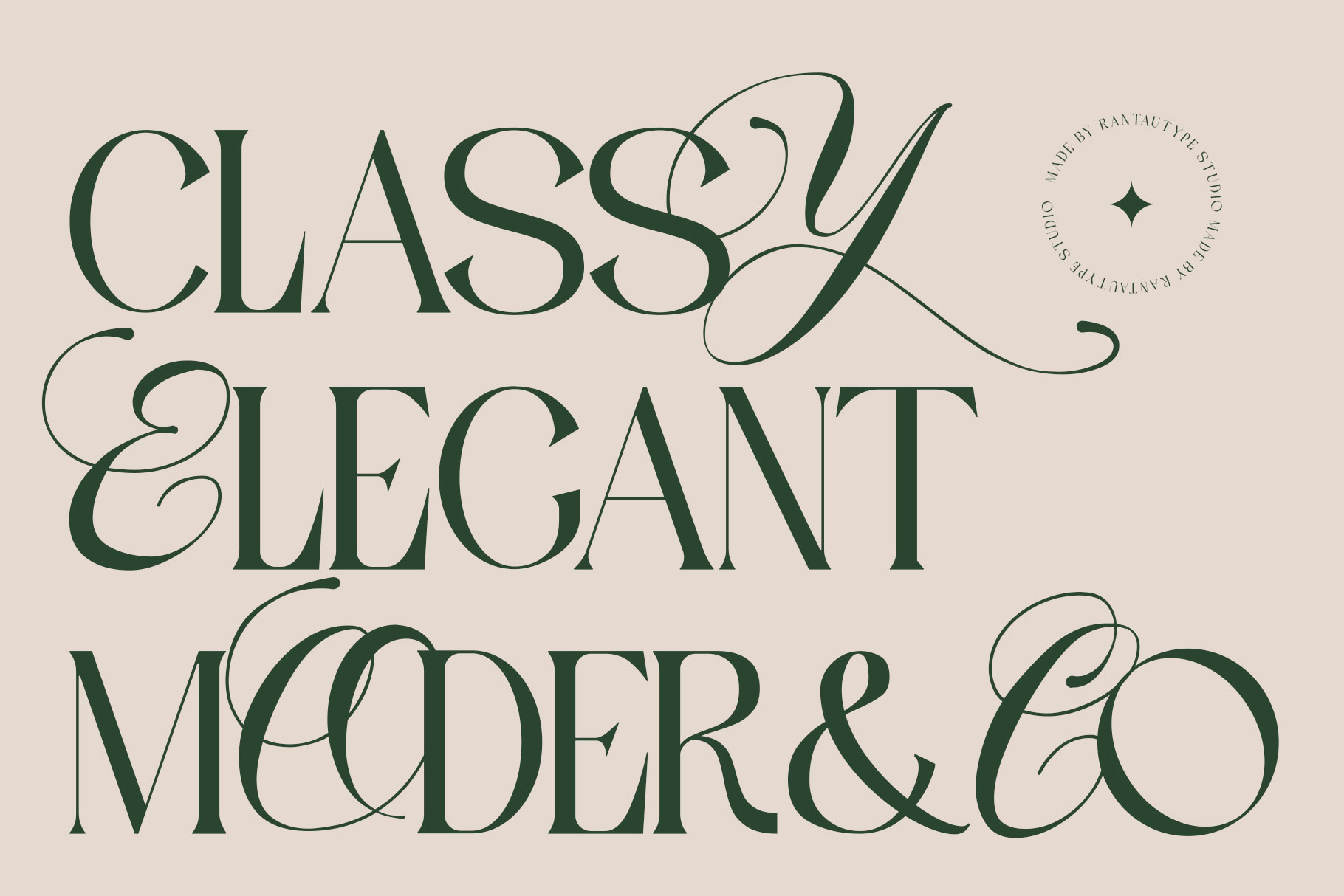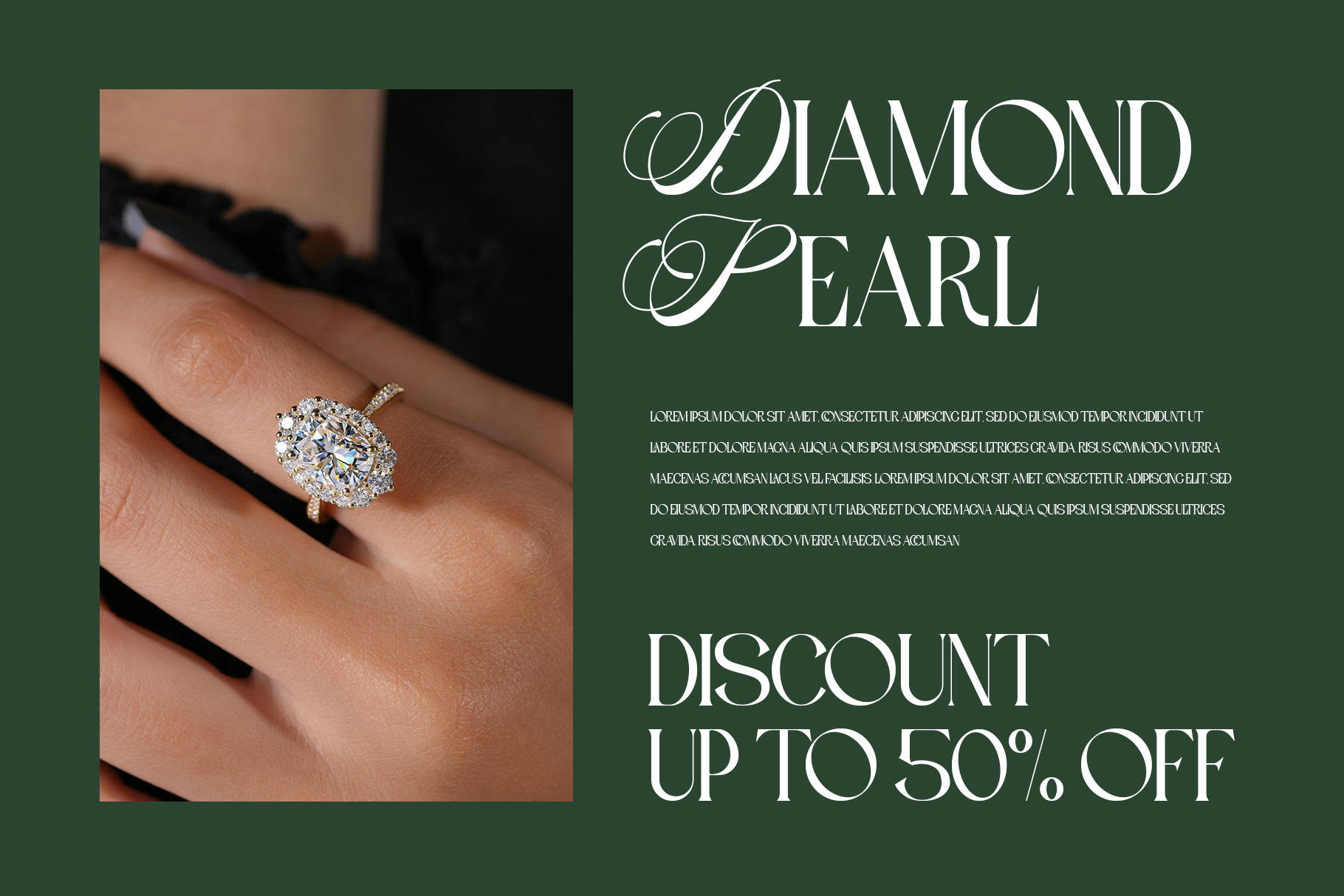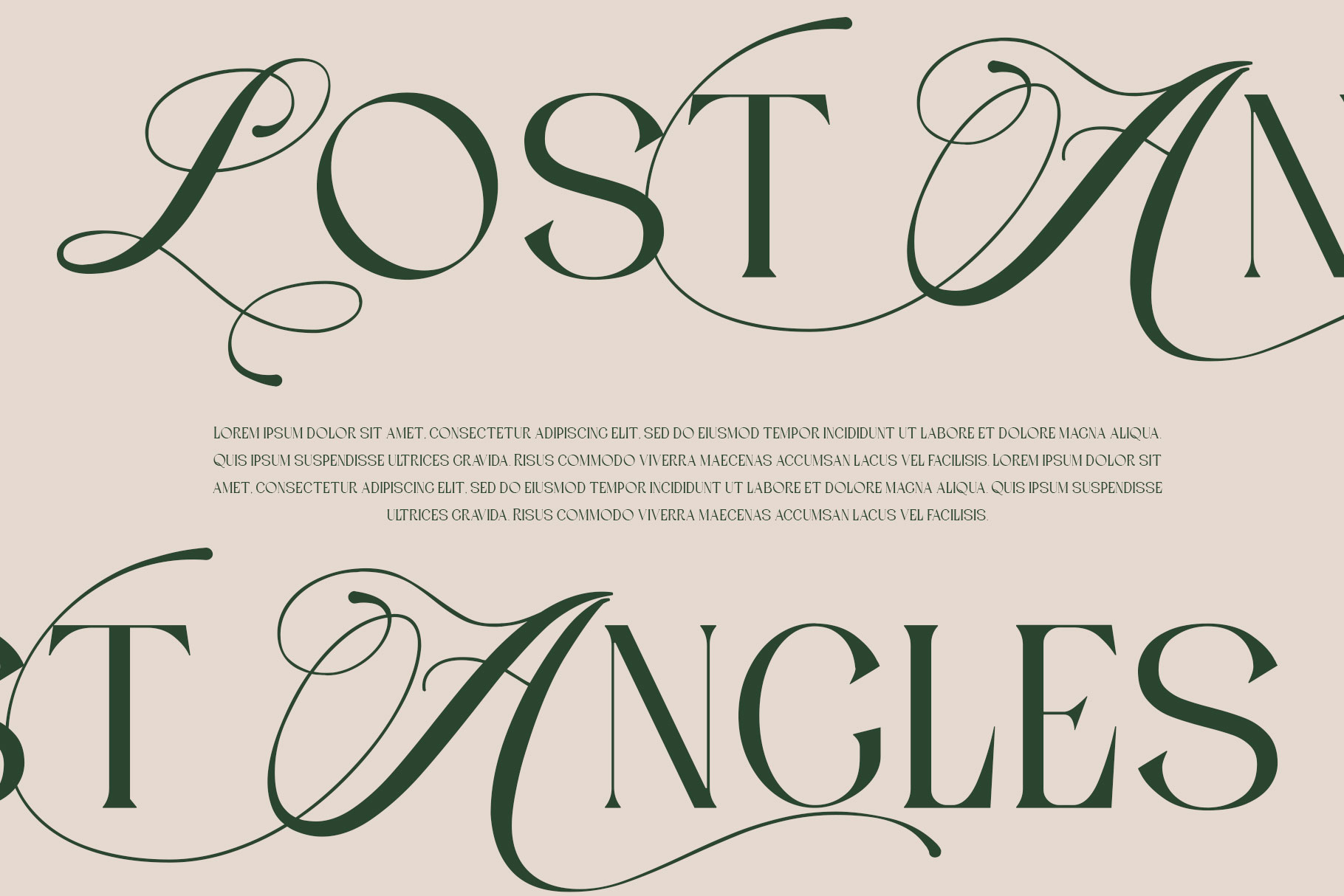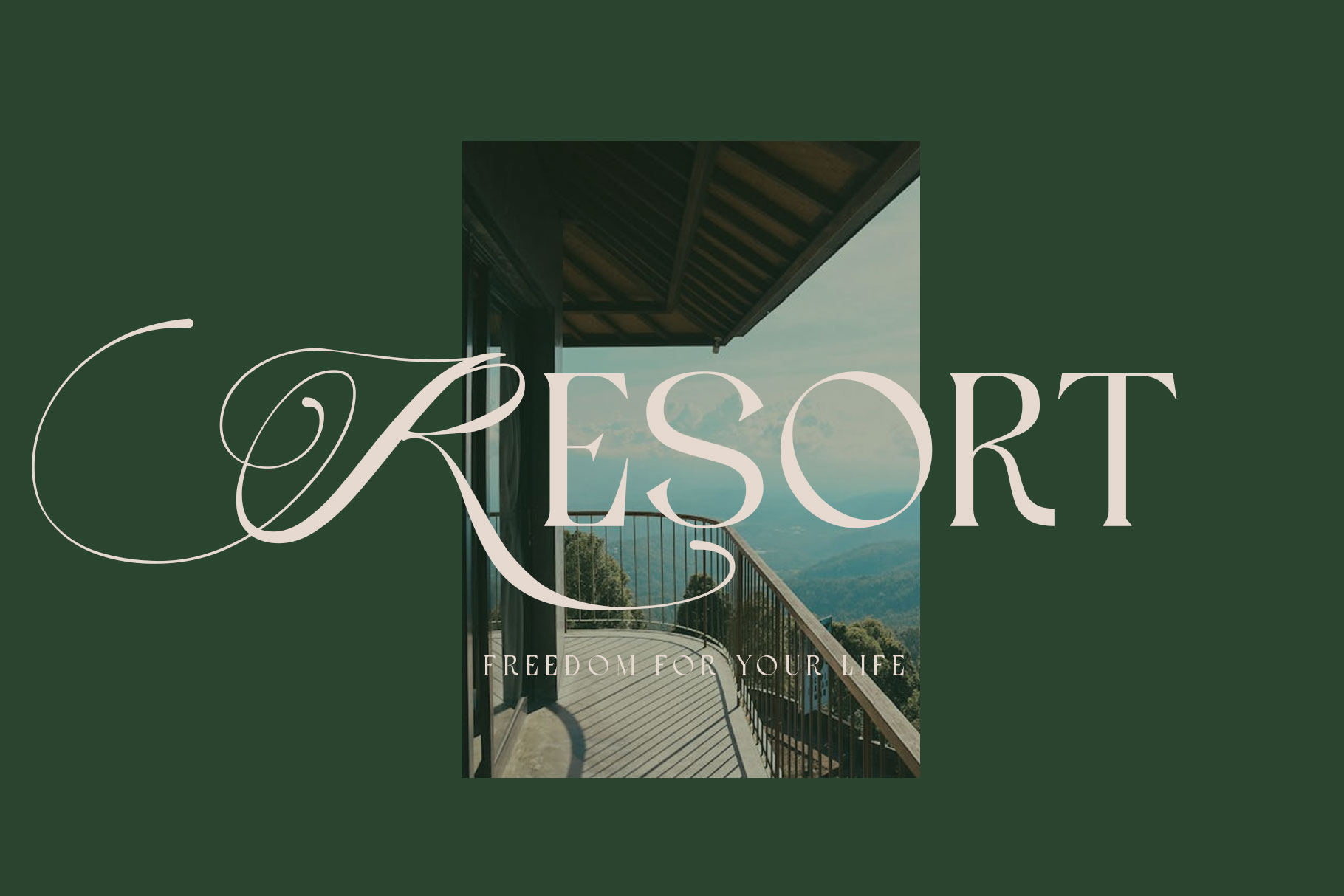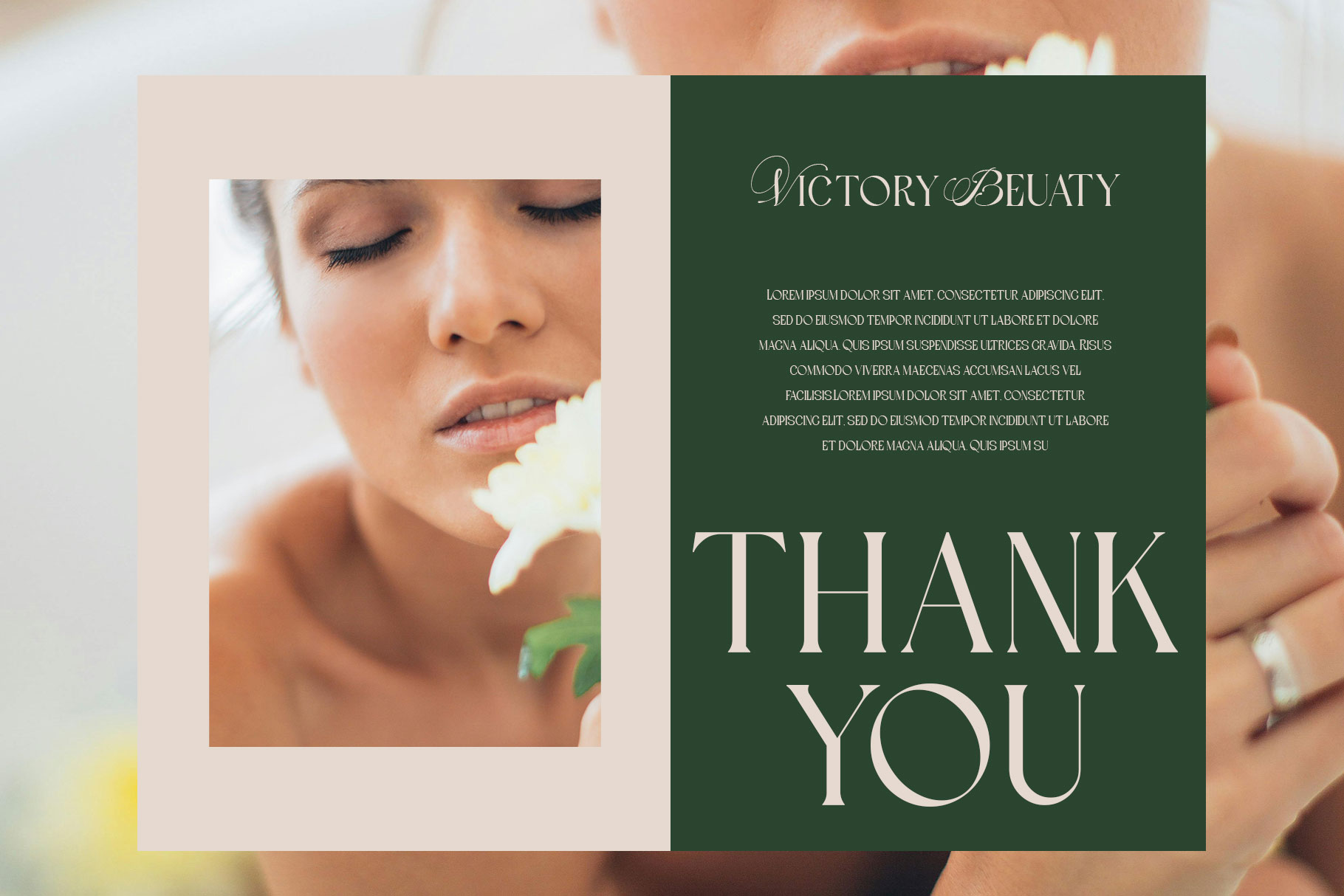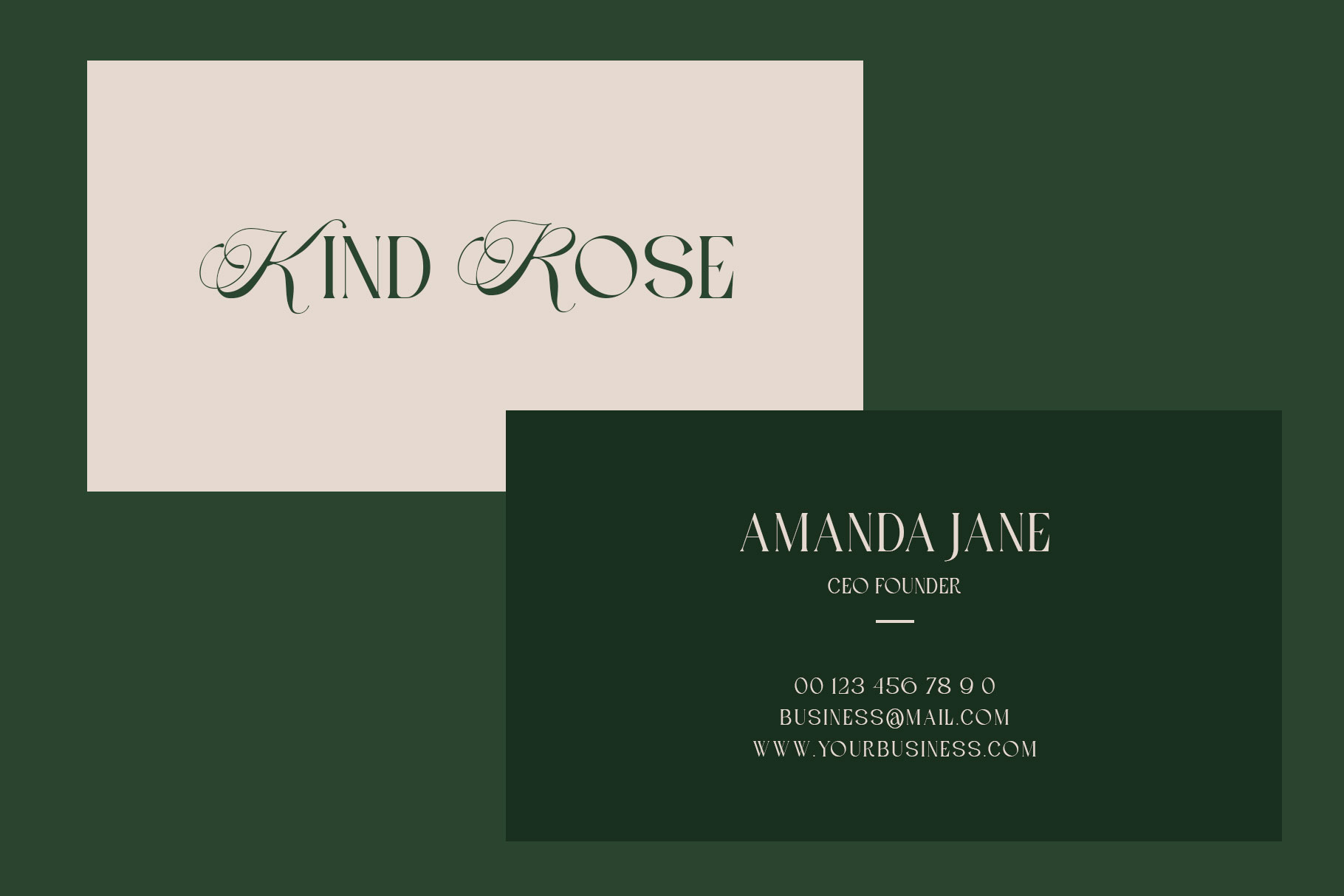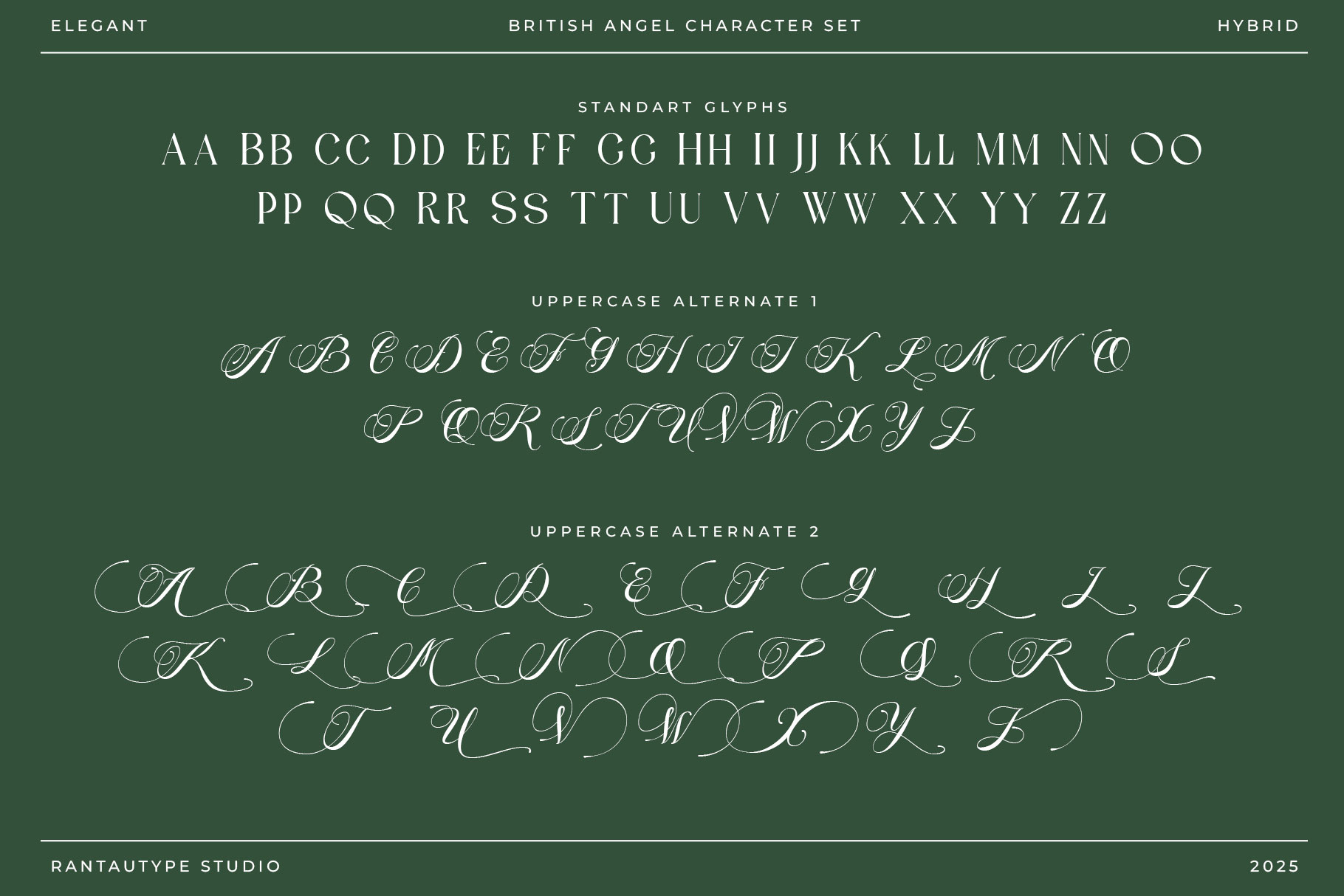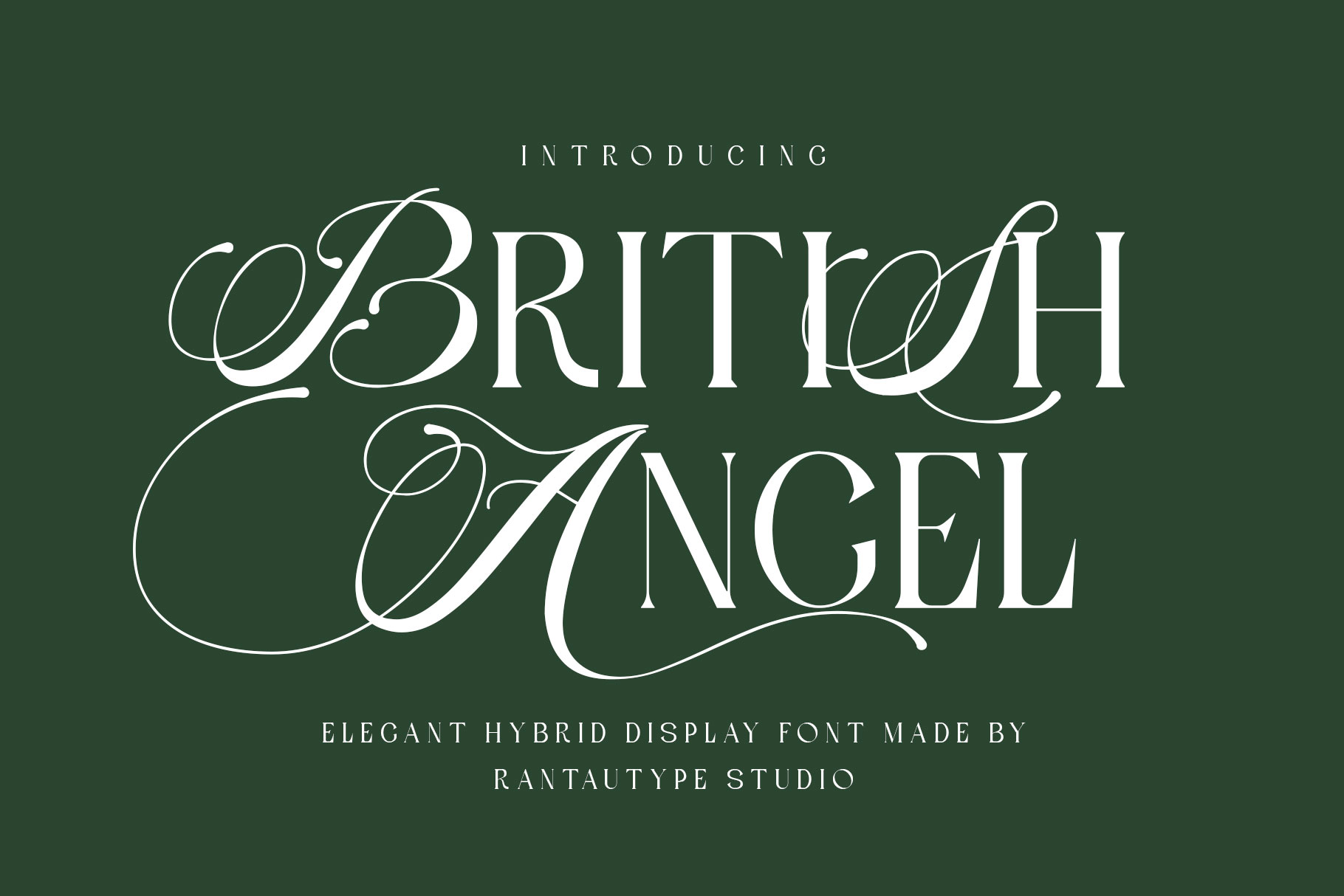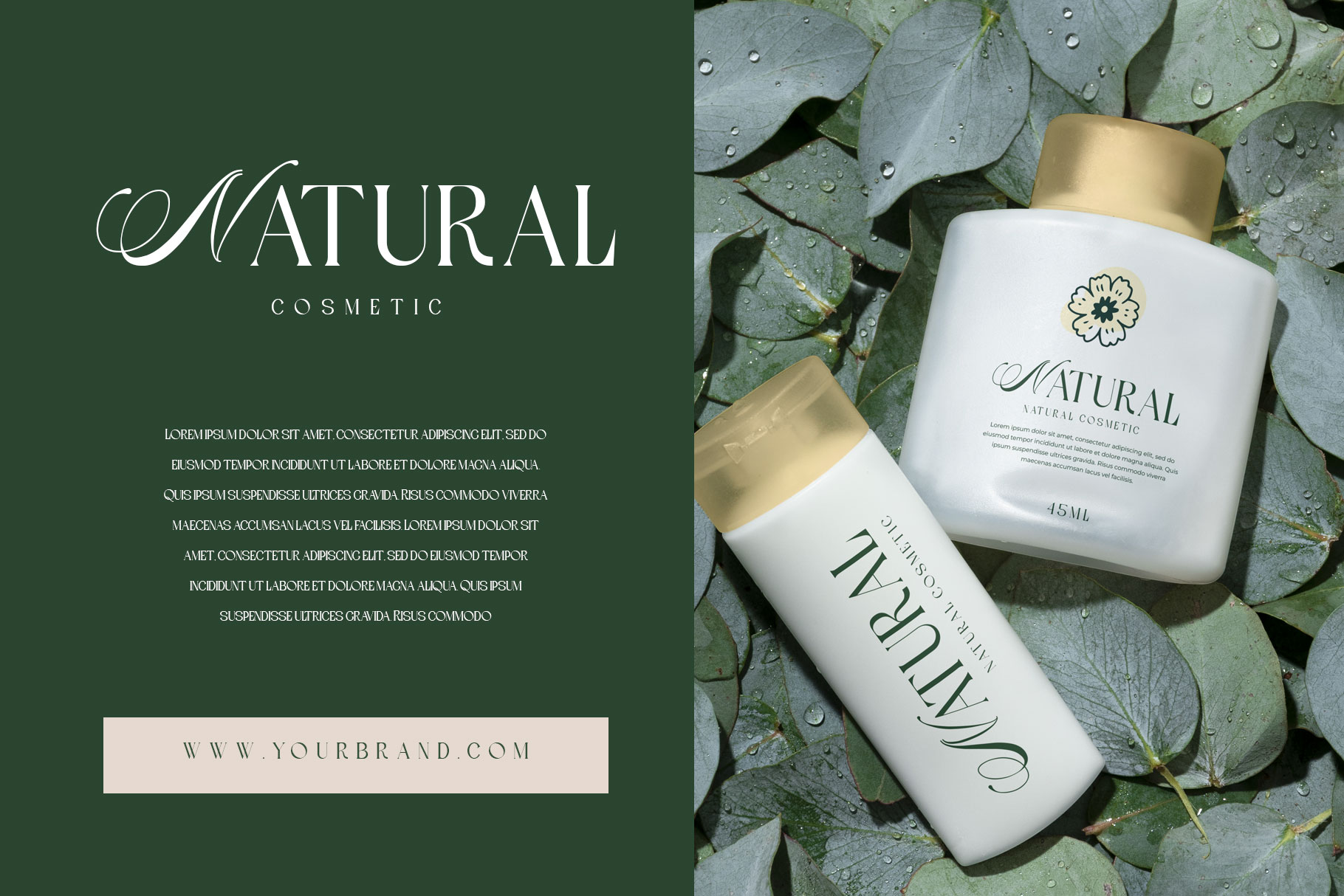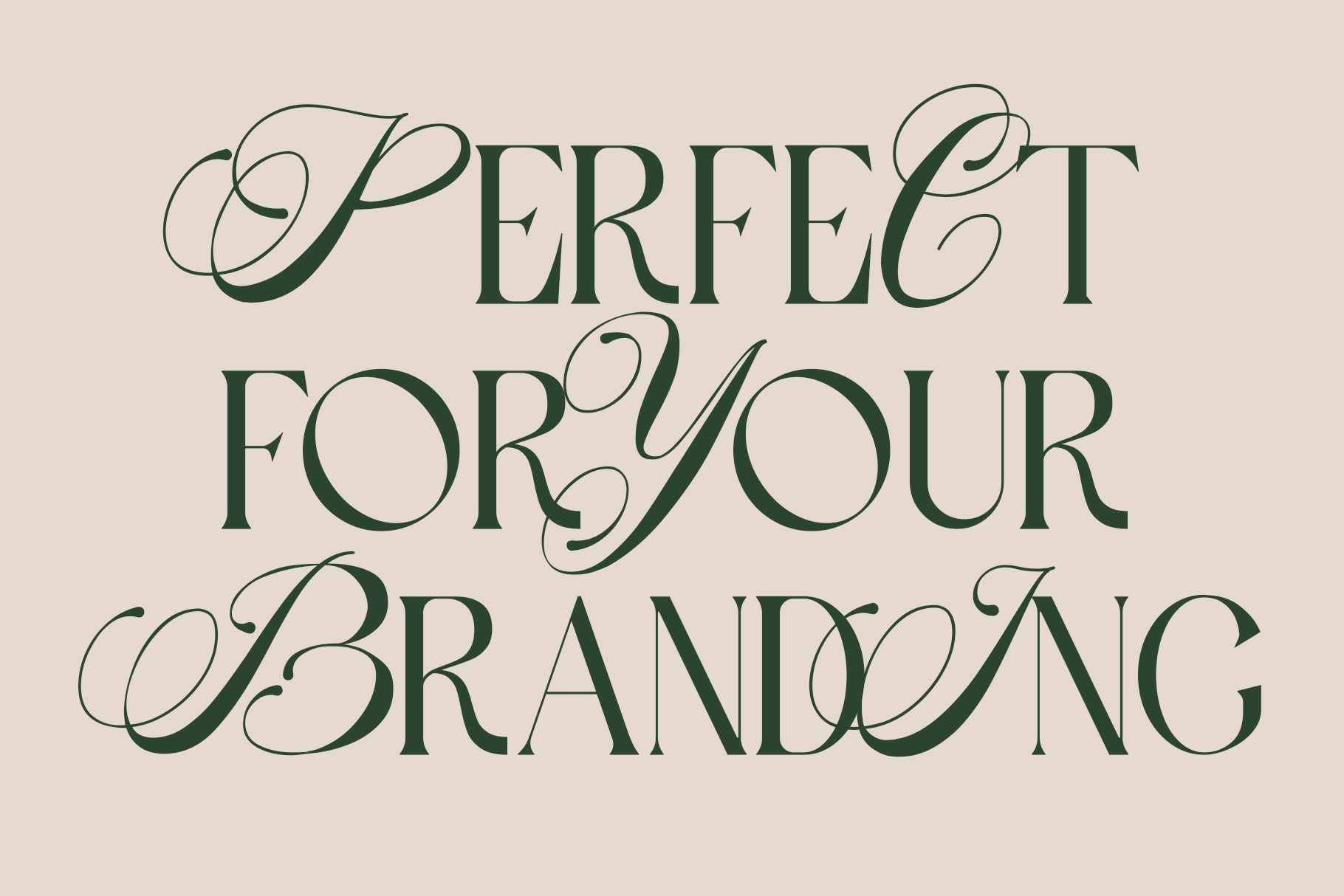
British Angel Hybrid Display Font
British Angel is elegant display font with combination script and serif. British Angel is a perfectly choice for any creative endeavor, creating, modern, lifestyle design such as logotype, title, cover, branding, invitations, wedding designs, display and magazine, social media posts, advertisements, printed quotes, product packaging, corporate brand, product designs, labels, photography, watermarks, special events and any other project with elegant touch.